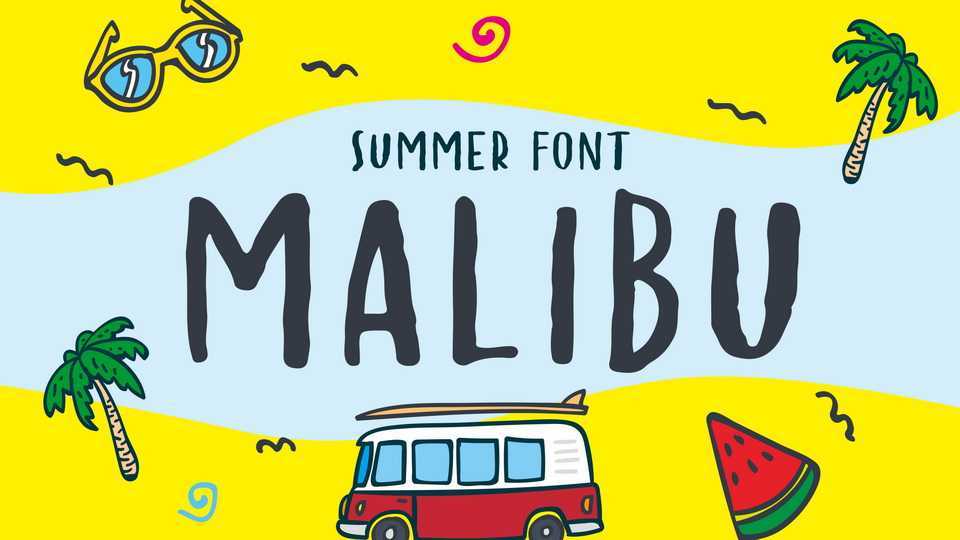
Download Malibu font, a handwritten typeface inspired by easy and carefree summer vibes. The beach life! The careless brush style suits perfectly for any summer and casual branding projects.
Designer: Alexatype